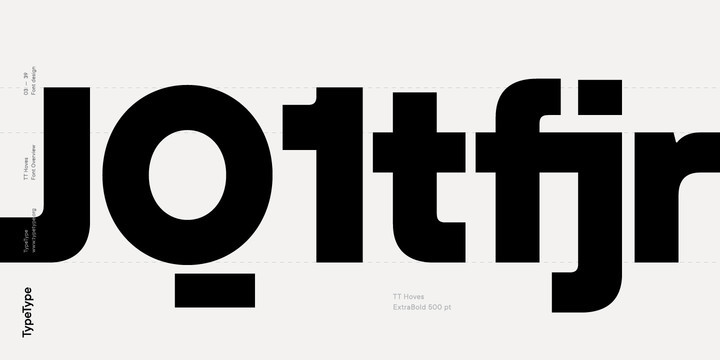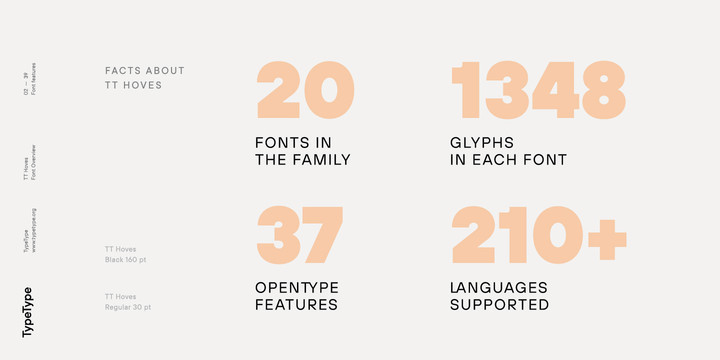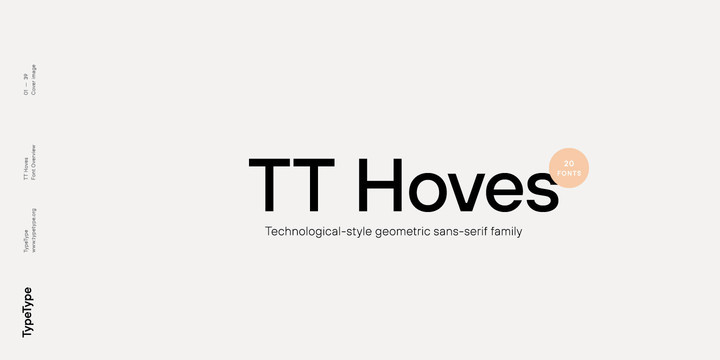
TT Hoves Font Family
TT Hoves completes the TypeType font trilogy dedicated to modern sans serif. The first was TT Norms—the universal geometric sans for the widest possible range of tasks. The second was the neutral sans TT Commons, which was originally designed as a corporate typeface for TypeType studios.